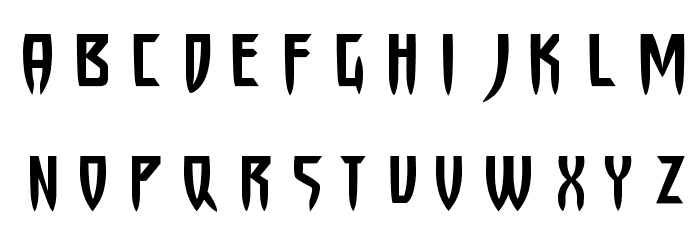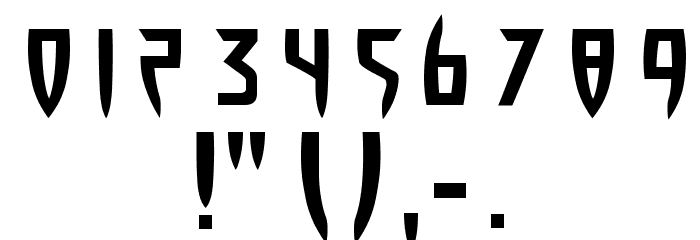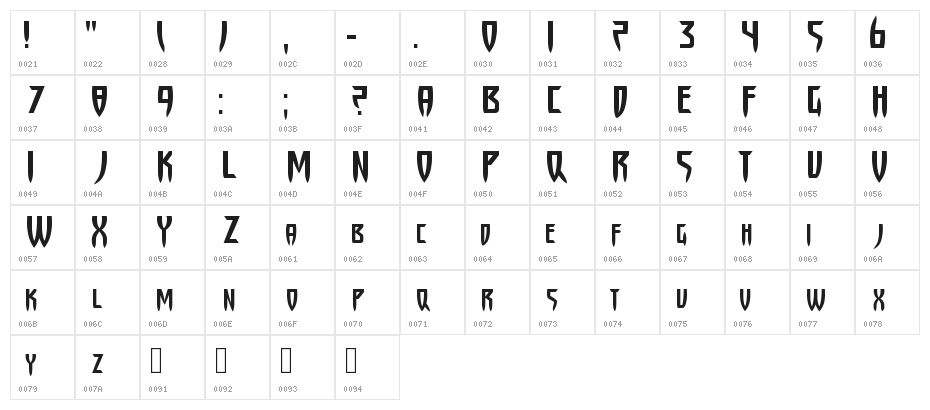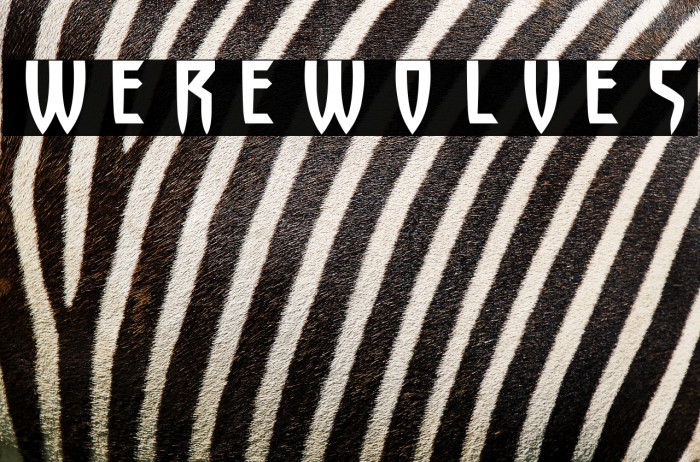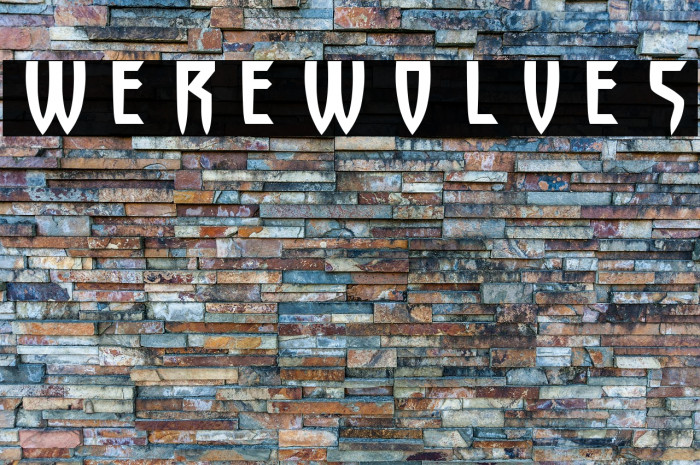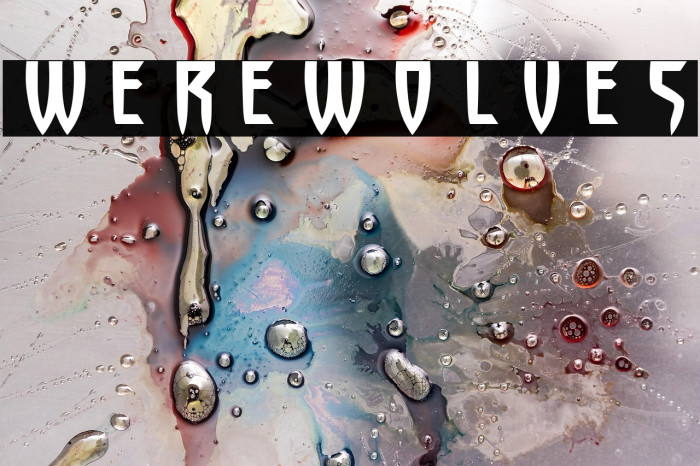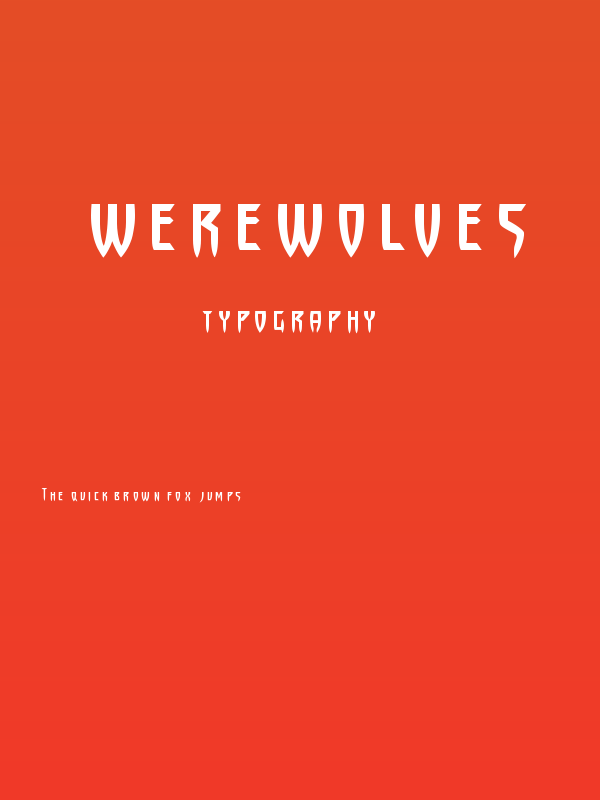
werewolves Font
This font features a bold and striking design with sharp, angular edges that evoke a sense of mystery and intrigue. The characters are crafted with a unique, claw-like appearance, making them stand out with a fierce and edgy style. The uppercase and lowercase letters maintain a consistent design, with each character exhibiting a pointed, almost fang-like quality. The numbers and special characters follow the same thematic design, ensuring a cohesive look across all elements. This font is perfect for projects that require a dramatic and impactful visual presence.
A bold, angular font with a claw-like, mysterious design.
- Proposed Projects: Ideal for horror-themed posters, video game titles, Halloween invitations, and branding for edgy or alternative products.